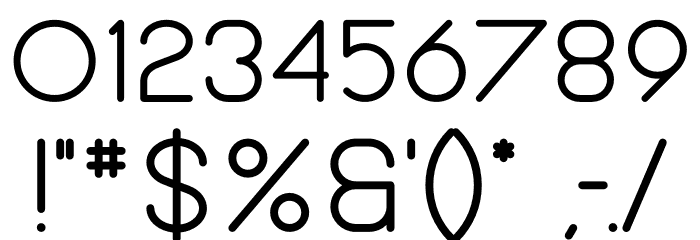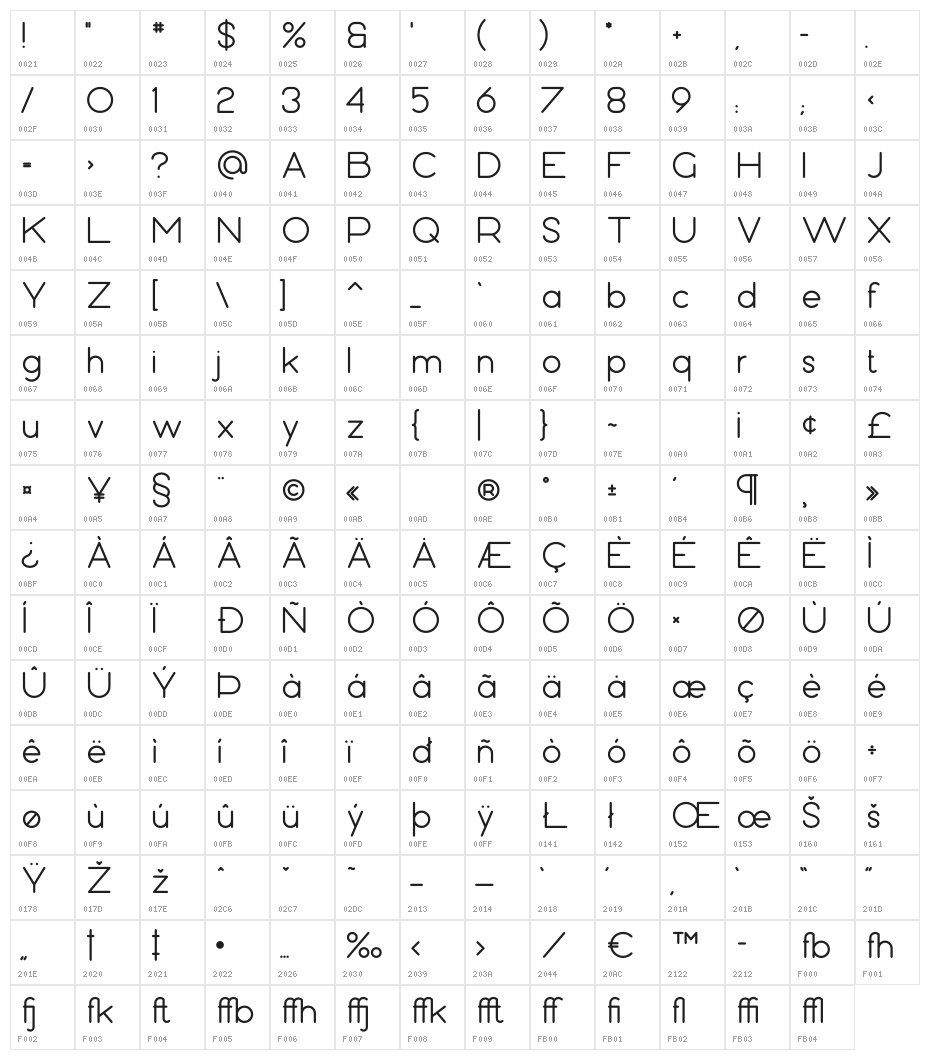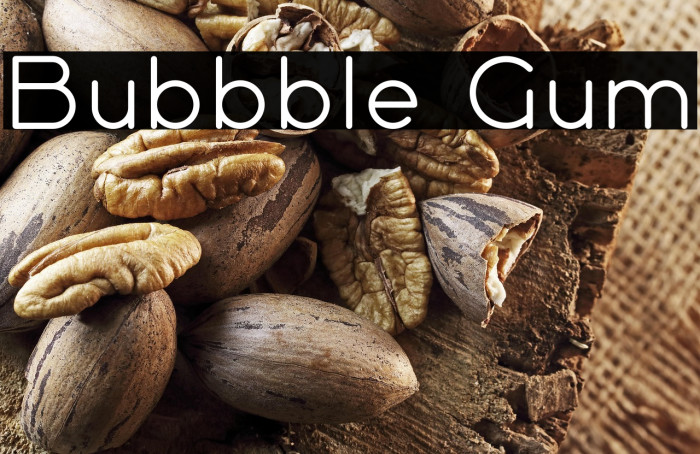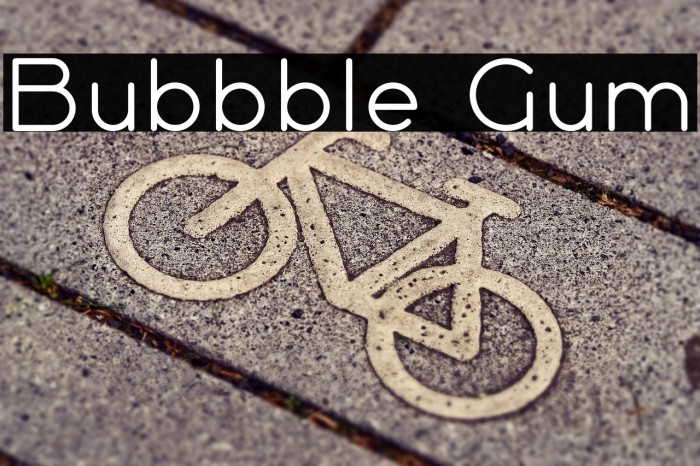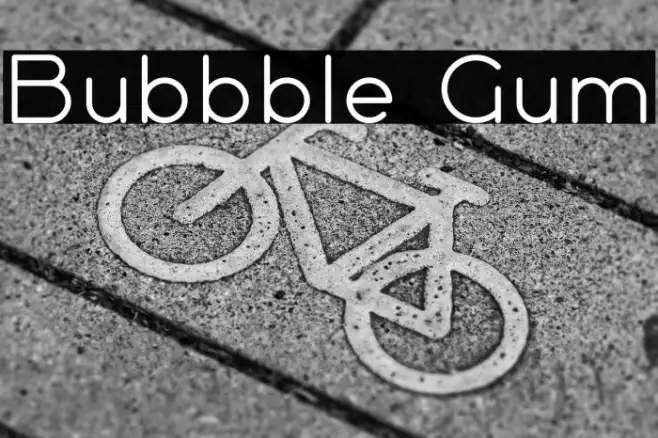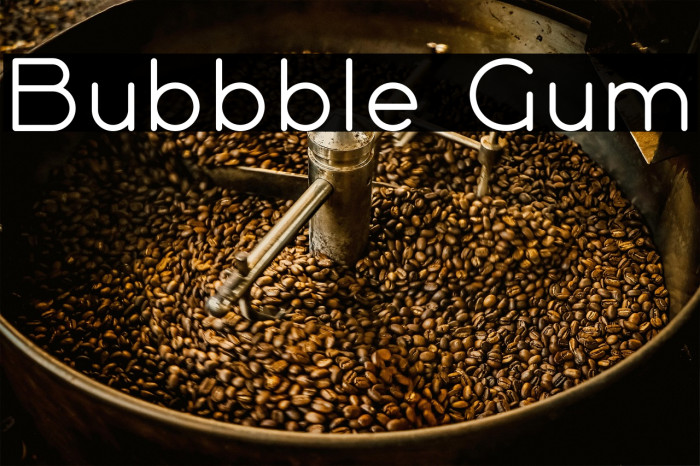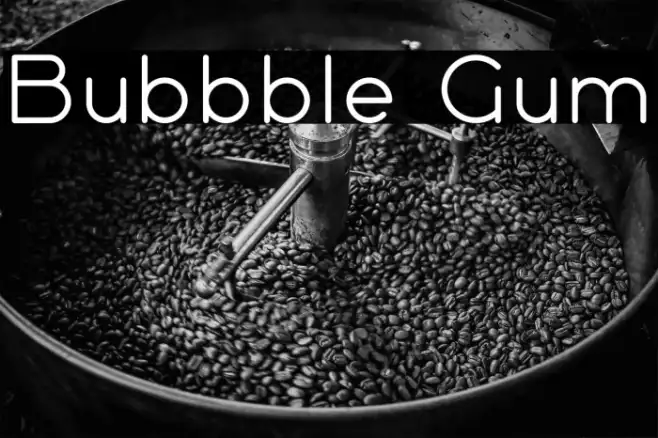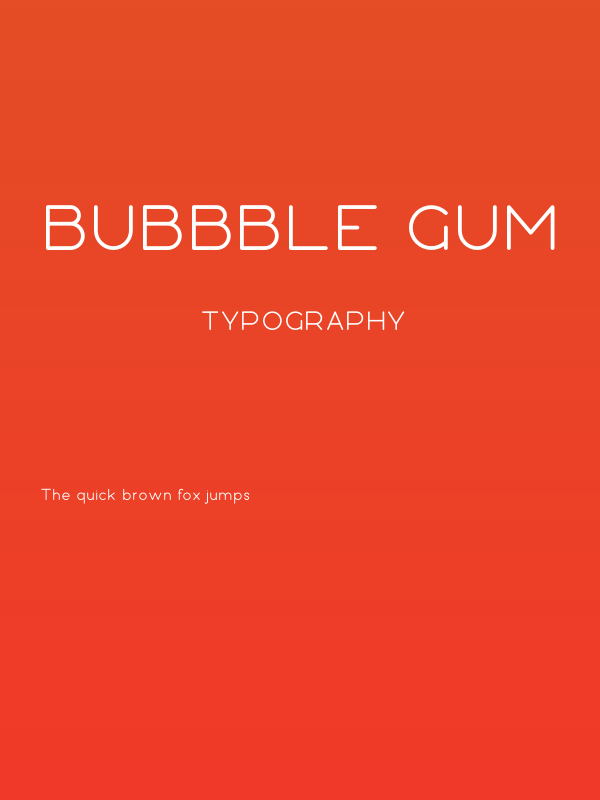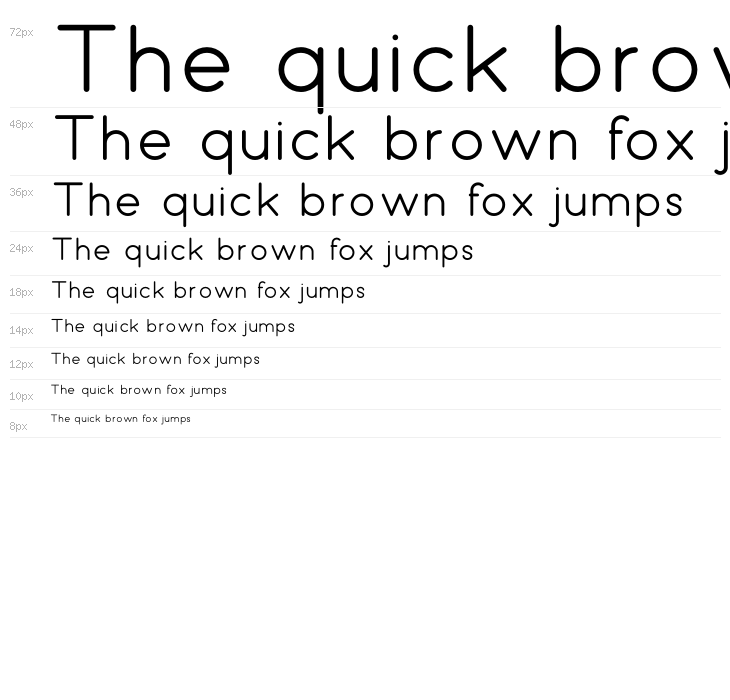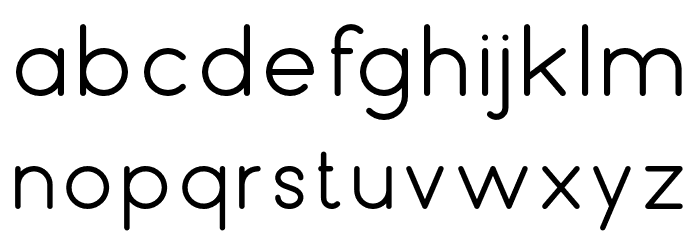
Bubbble Gum Font
Bubbble Gum Description
This font features a playful and rounded design, characterized by its smooth curves and consistent line thickness. The letters are evenly spaced, providing a clean and modern appearance. The uppercase and lowercase letters maintain a uniform style, with rounded edges that give a friendly and approachable feel. The numerals and special characters follow the same design principles, ensuring a cohesive look across all glyphs. This font is versatile and can be used in various design projects that require a touch of whimsy and modernity.
| Use Case | Headlines, Logos, Casual Text |
| Proposed Projects | Ideal for children's books, playful branding, casual invitations, and modern web design. |